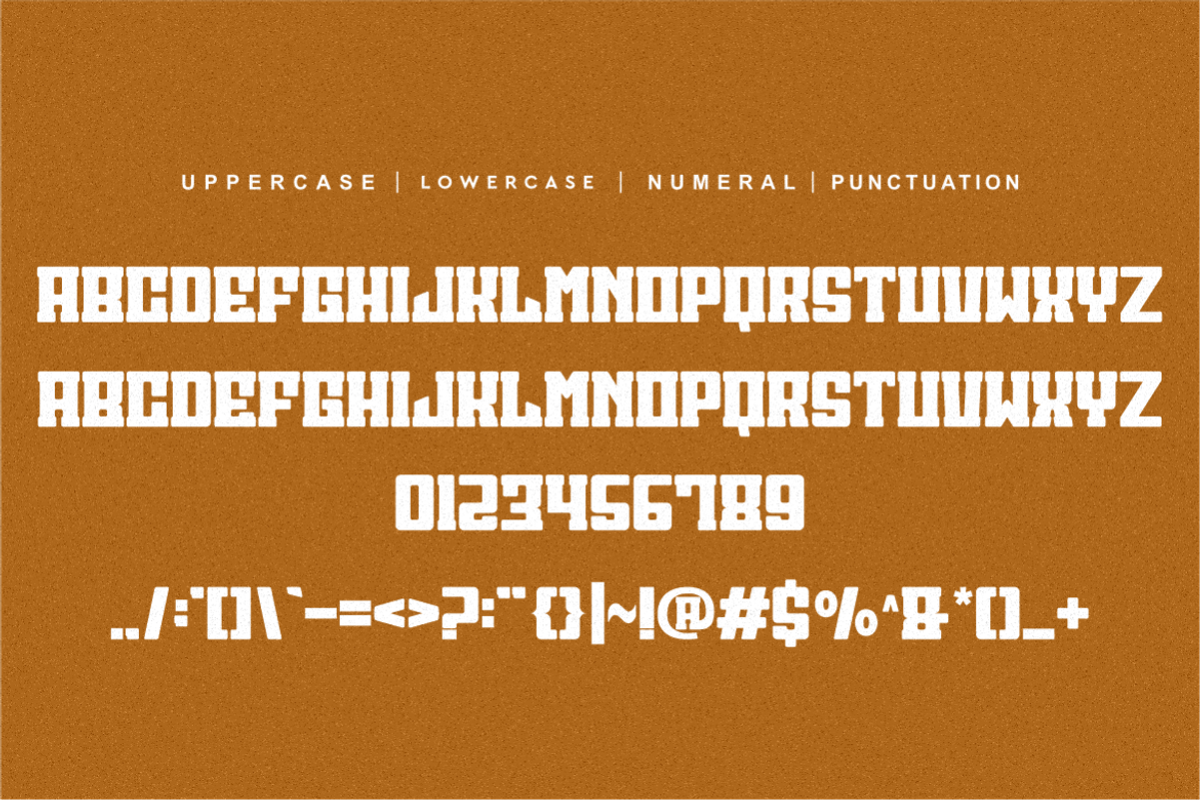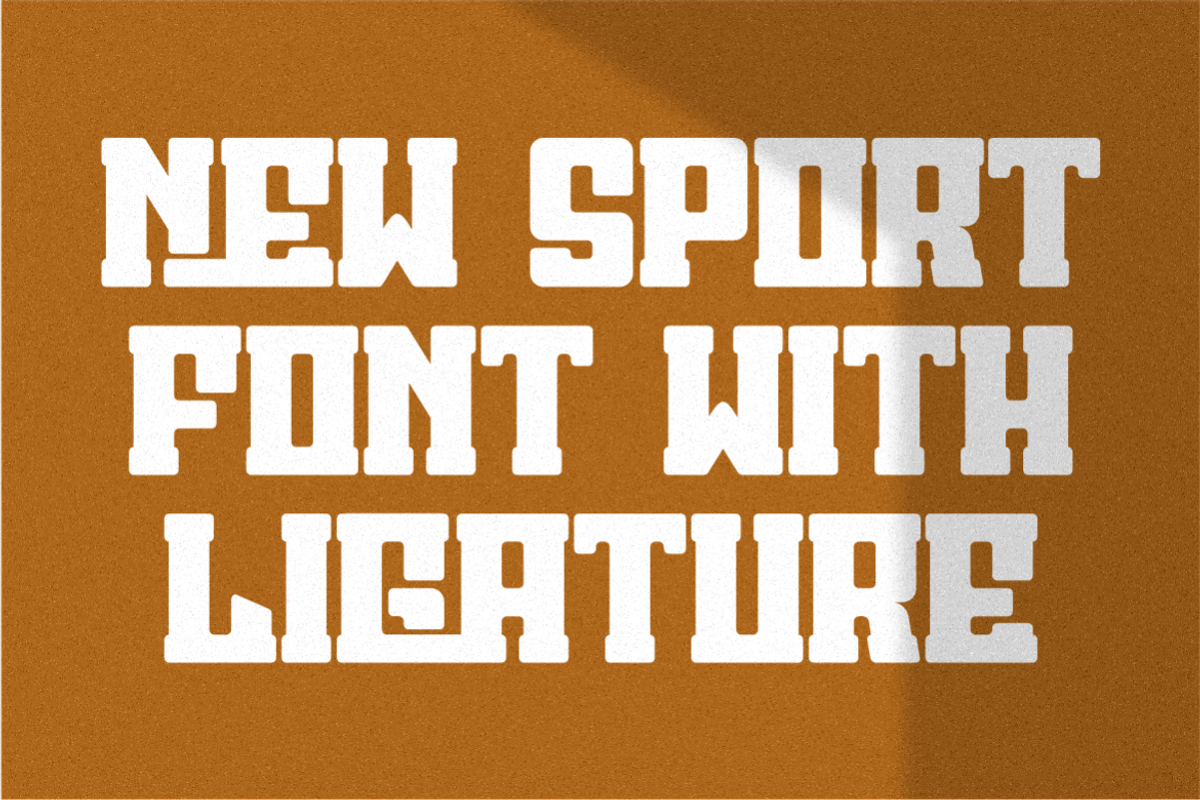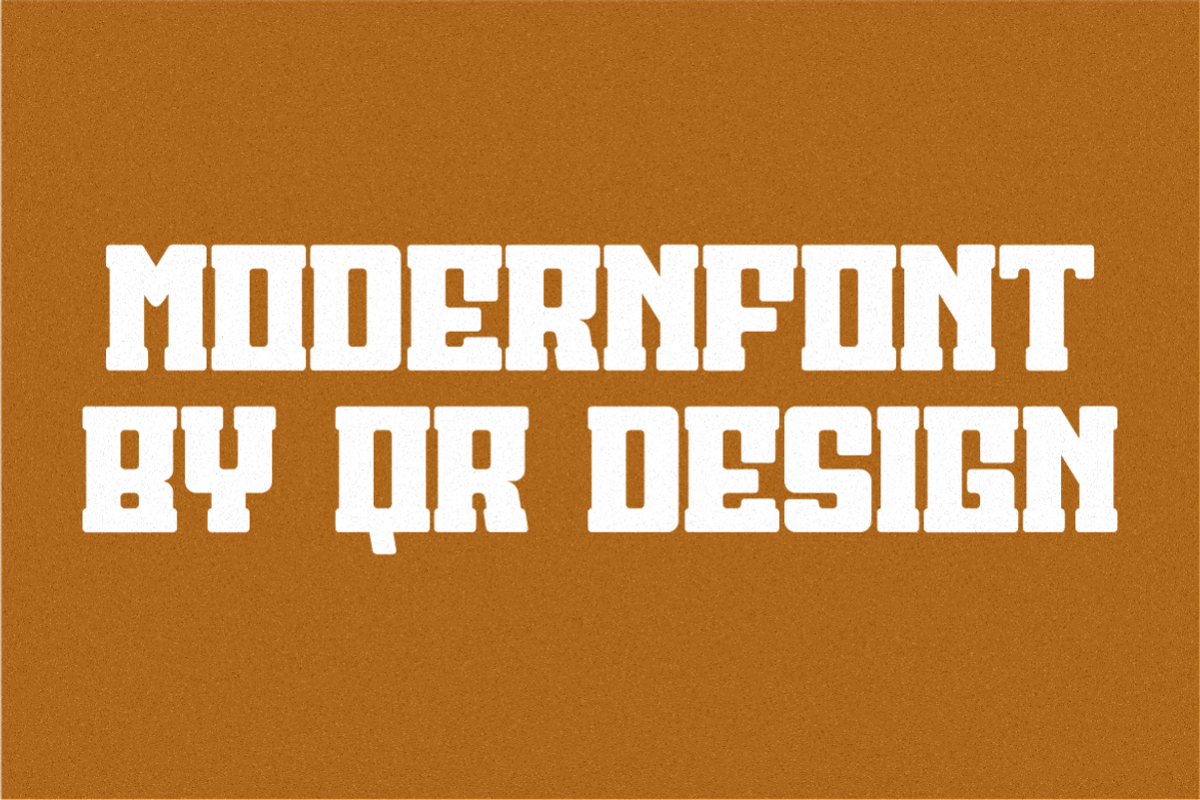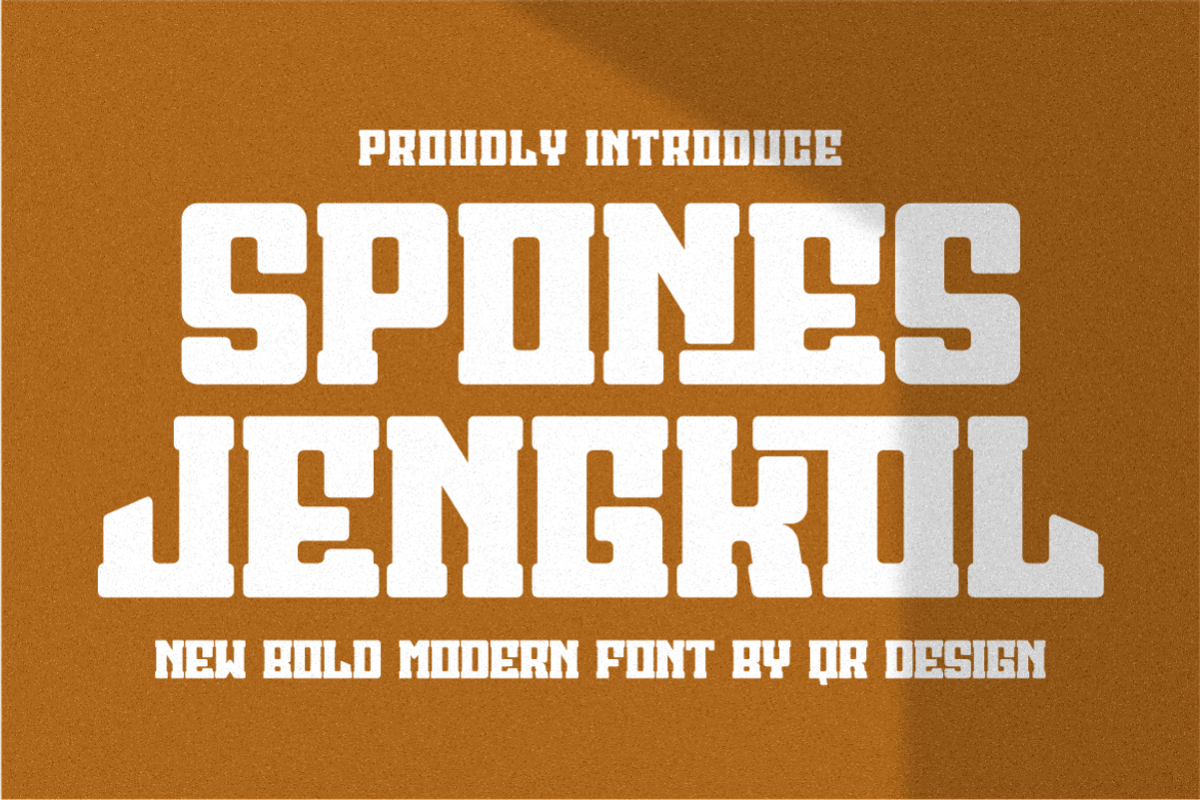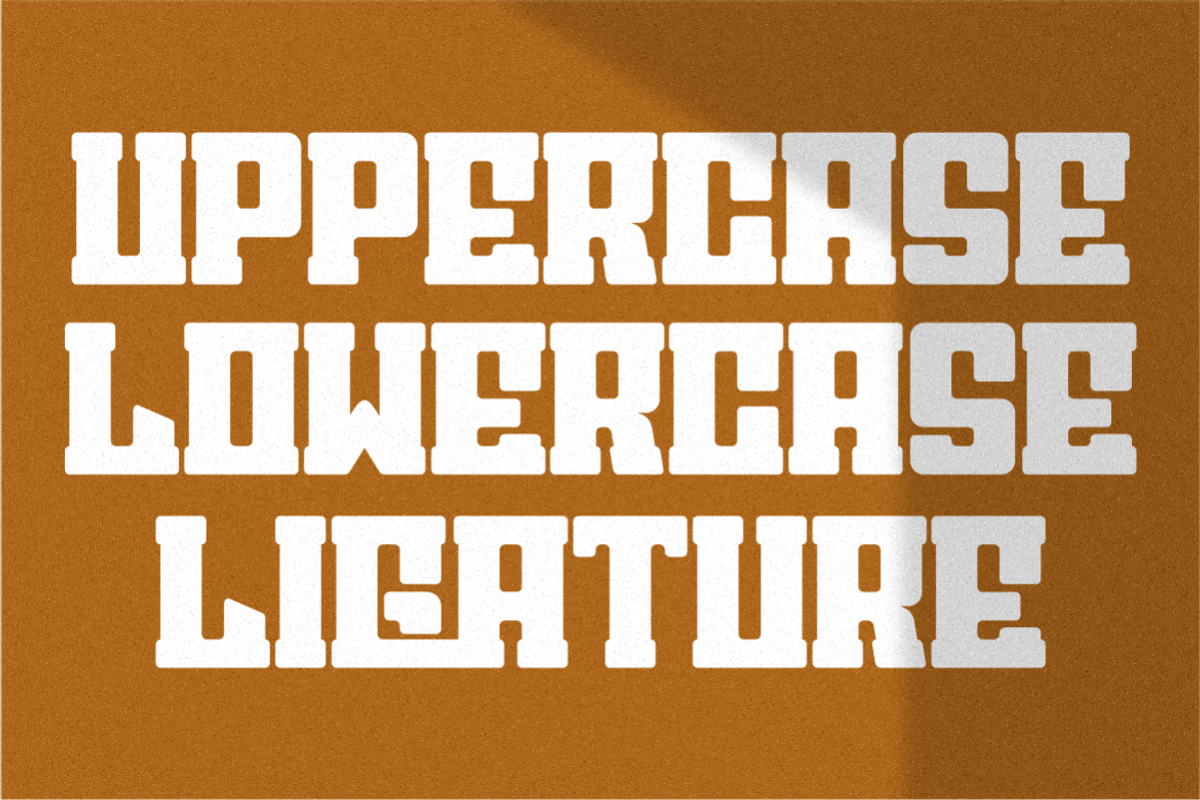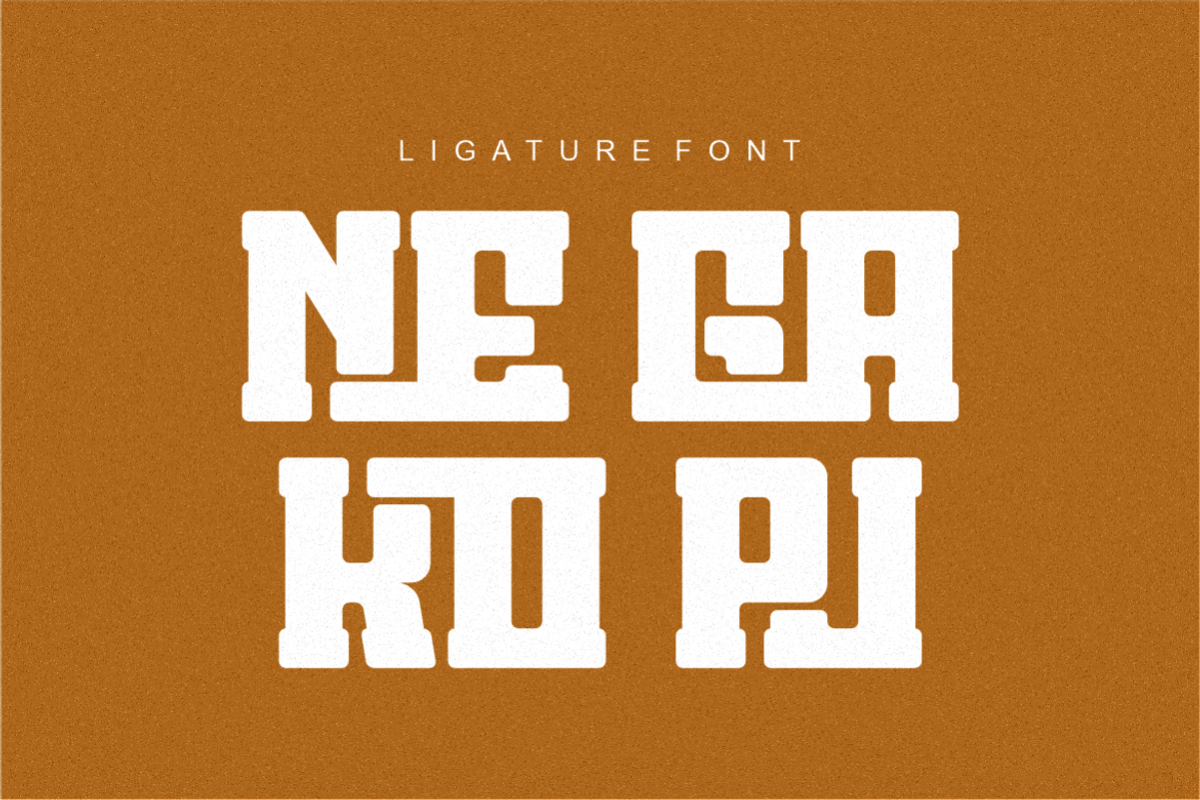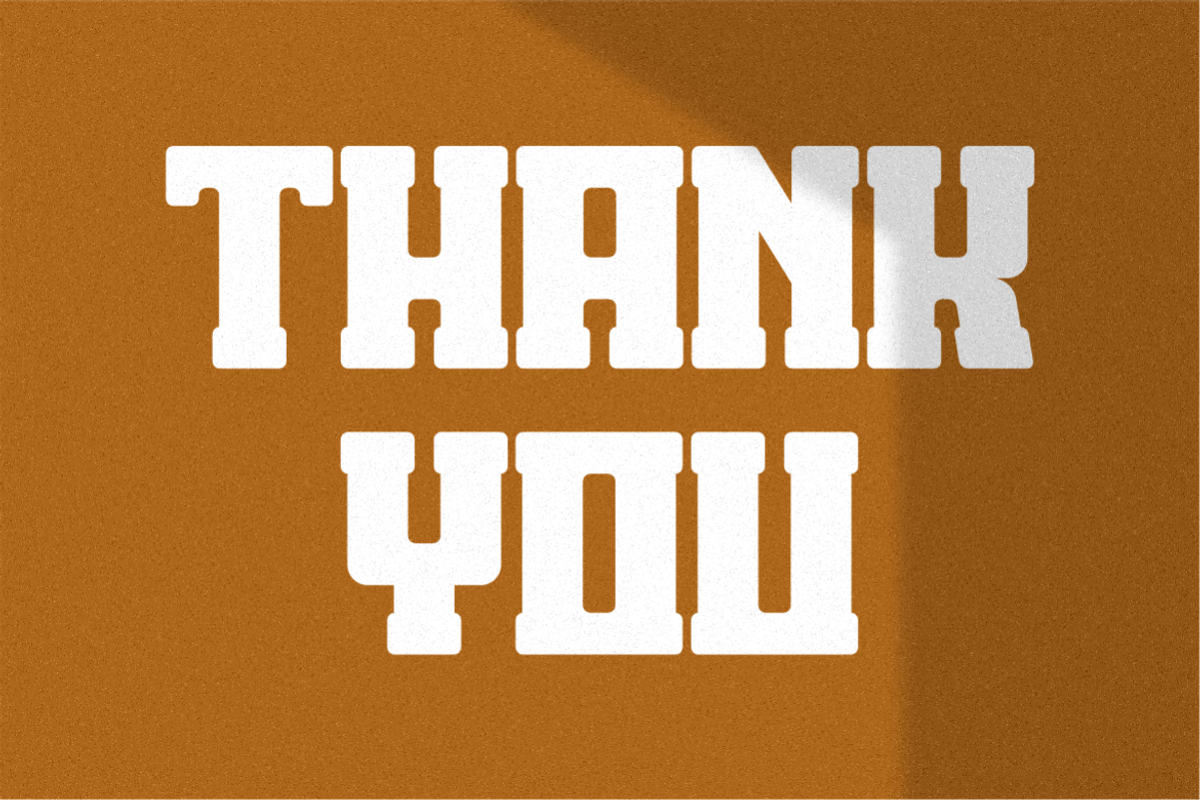
Spones Jengkol
Spones Jengkol Font is a bold and authentic display font. The font is suitable for any branding project like logo, sport, and many more. Outstanding in a wide range of contexts.